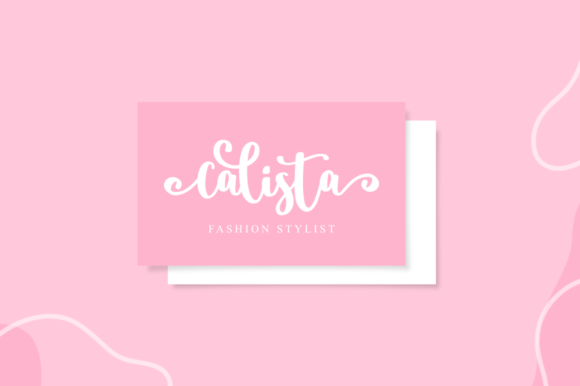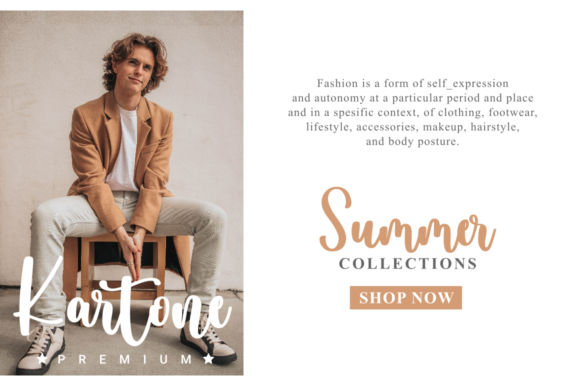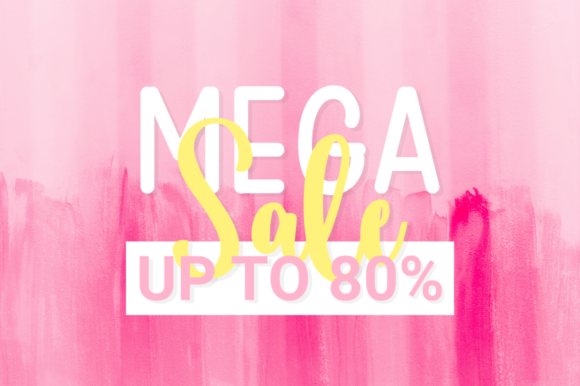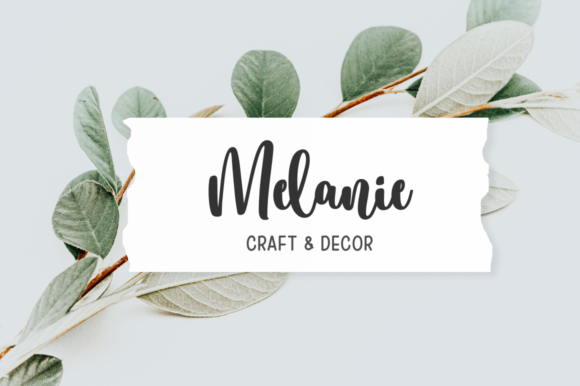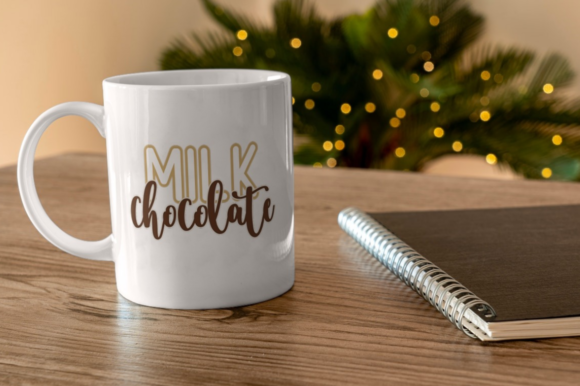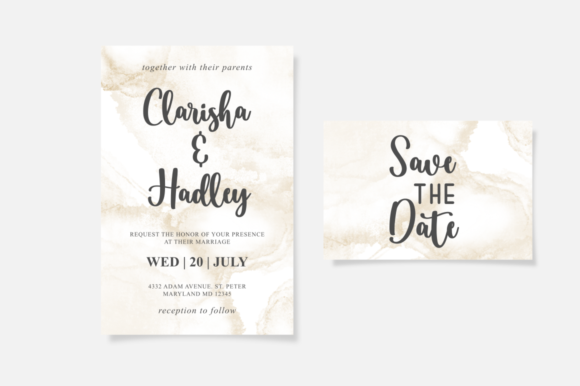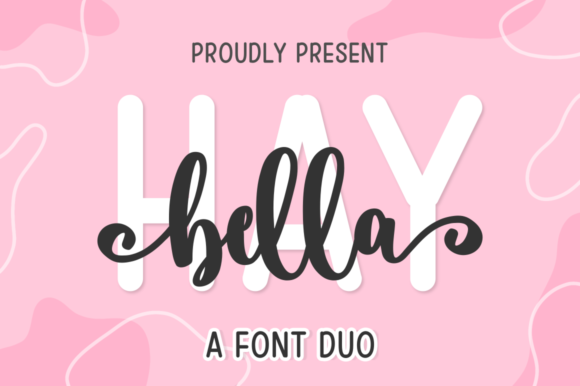
Introducing Hay Bella Font: Elevate Your Crafts with Chic and Cheery Typography
Are you a designer or crafter looking for the perfect font to add a touch of elegance and playfulness to your projects? Look no further than Hay Bella Font, a stunning duo of script and sans serif fonts designed to complement each other perfectly. In this article, we’ll dive into the features and benefits of Hay Bella Font, and explore how it can elevate your crafts to the next level.
A Perfect Pair: Script and Sans Serif Fonts
Hay Bella Font consists of two fonts: a beautiful script font and a clean sans serif font. These fonts are carefully crafted to work together seamlessly, allowing you to mix and match them to create visually appealing combinations. Whether you’re designing a logo, creating a social media graphic, or crafting a handmade card, Hay Bella Font is the perfect choice.
The script font features elegant, cursive letters with a touch of whimsy, while the sans serif font provides a clean and modern contrast. Together, they create a harmonious balance of style and sophistication. You can use them together to add visual interest to your designs, or use them separately to create a cohesive look.
Hay Bella Font is specifically designed with designers and crafters in mind. Whether you’re creating handmade cards, scrapbooking pages, or digital graphics, this font duo is the perfect choice. The script and sans serif fonts are versatile and easy to use, making them suitable for a wide range of projects.
Here are just a few ideas for using Hay Bella Font in your designs:
- Create beautiful handmade cards and gift tags with a personal touch
- Design eye-catching social media graphics and blog posts
- Make stunning scrapbooking pages and photo albums
- Develop a cohesive brand identity with custom logos and typography
Why Choose Hay Bella Font?
So why choose Hay Bella Font over other font options? Here are just a few reasons:
- Unique and stylish: Hay Bella Font offers a fresh and distinctive look that’s sure to set your designs apart
- Versatile: The script and sans serif fonts can be used together or separately to create a wide range of effects
- High-quality design: The fonts are carefully crafted to ensure a smooth and elegant appearance
Hay Bella Font is a versatile and stylish font duo that’s perfect for designers and crafters looking to add a touch of elegance and playfulness to their projects. With its PUA encoding and complementary script and sans serif fonts, Hay Bella Font is the ideal choice for a wide range of applications. Whether you’re creating handmade cards, digital graphics, or logos, this font duo is sure to elevate your designs to the next level.